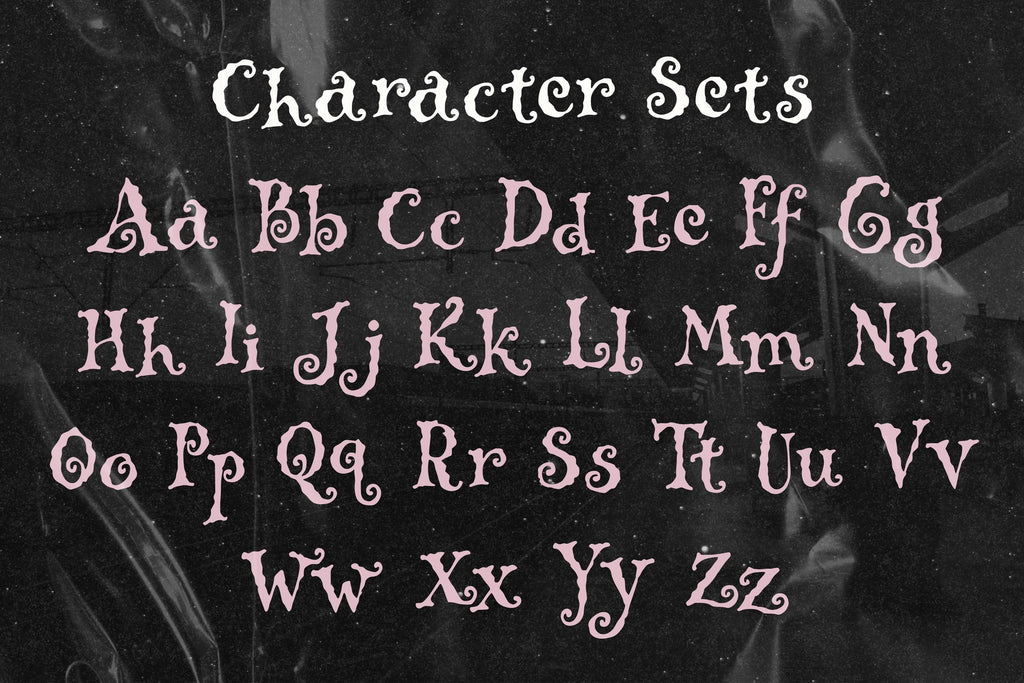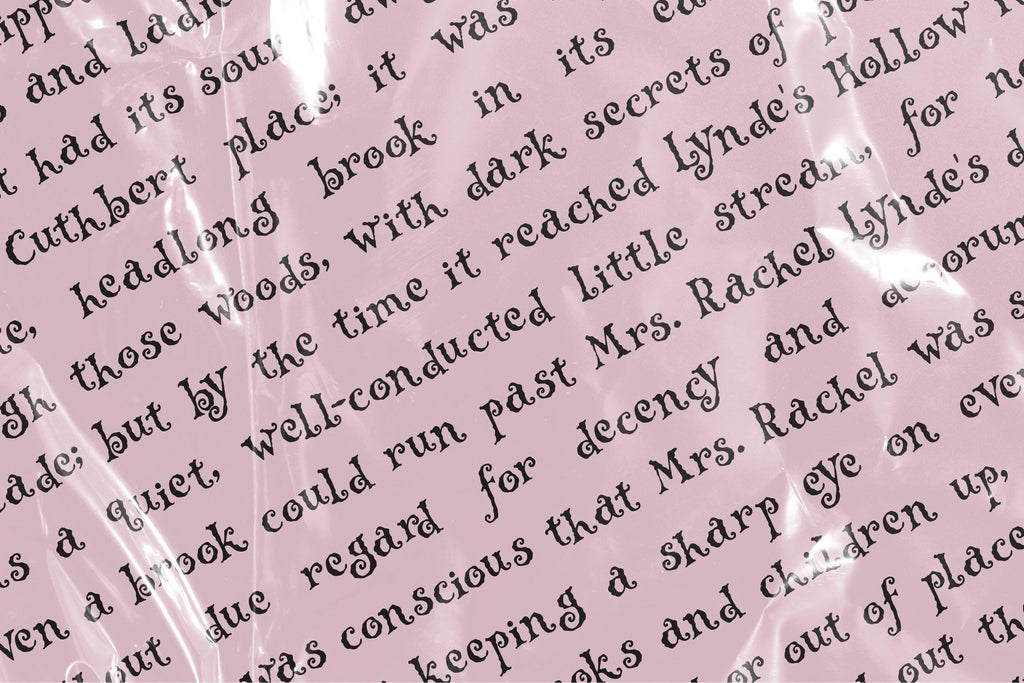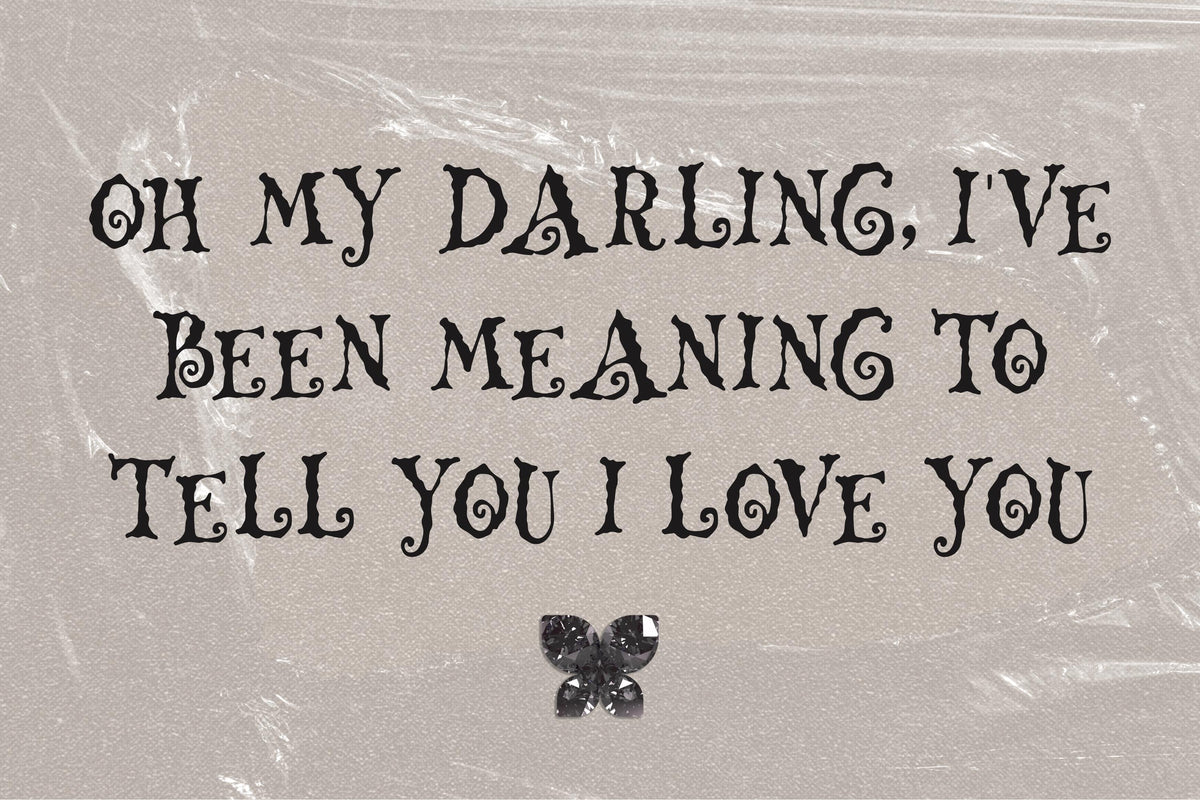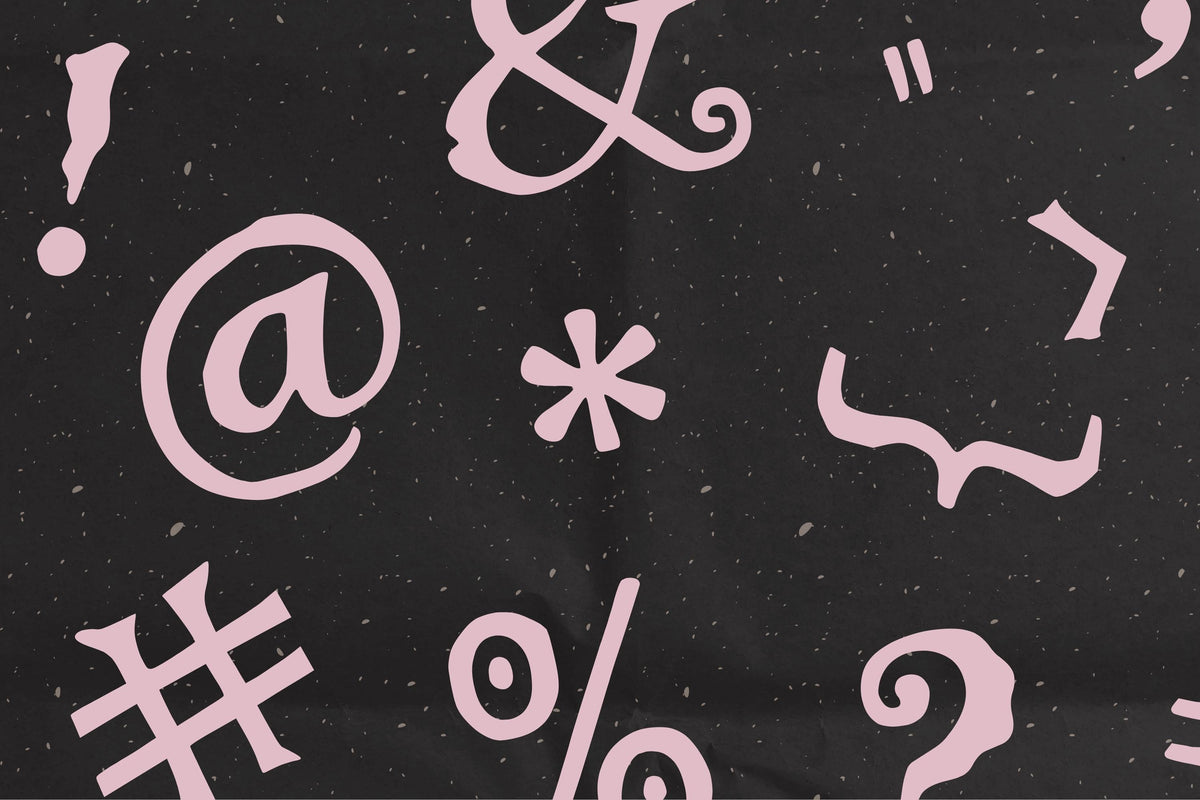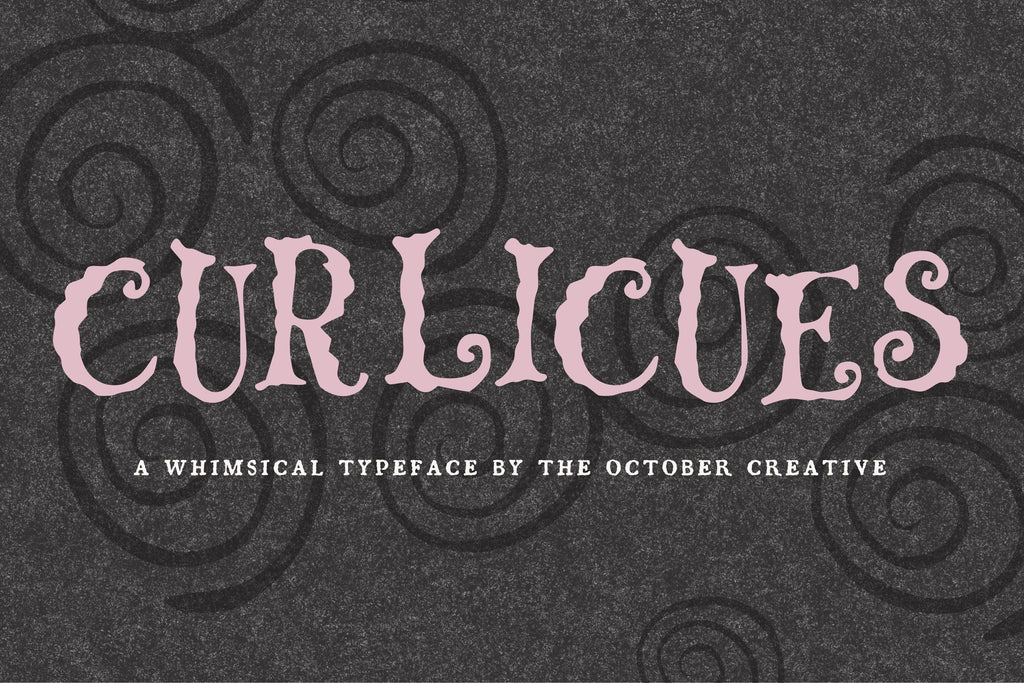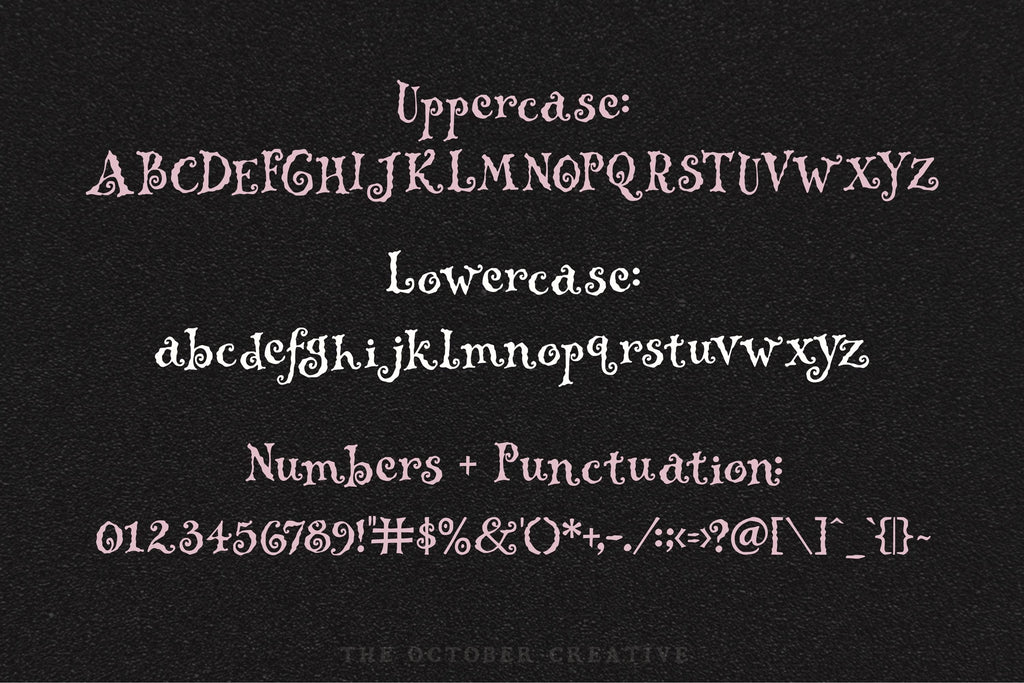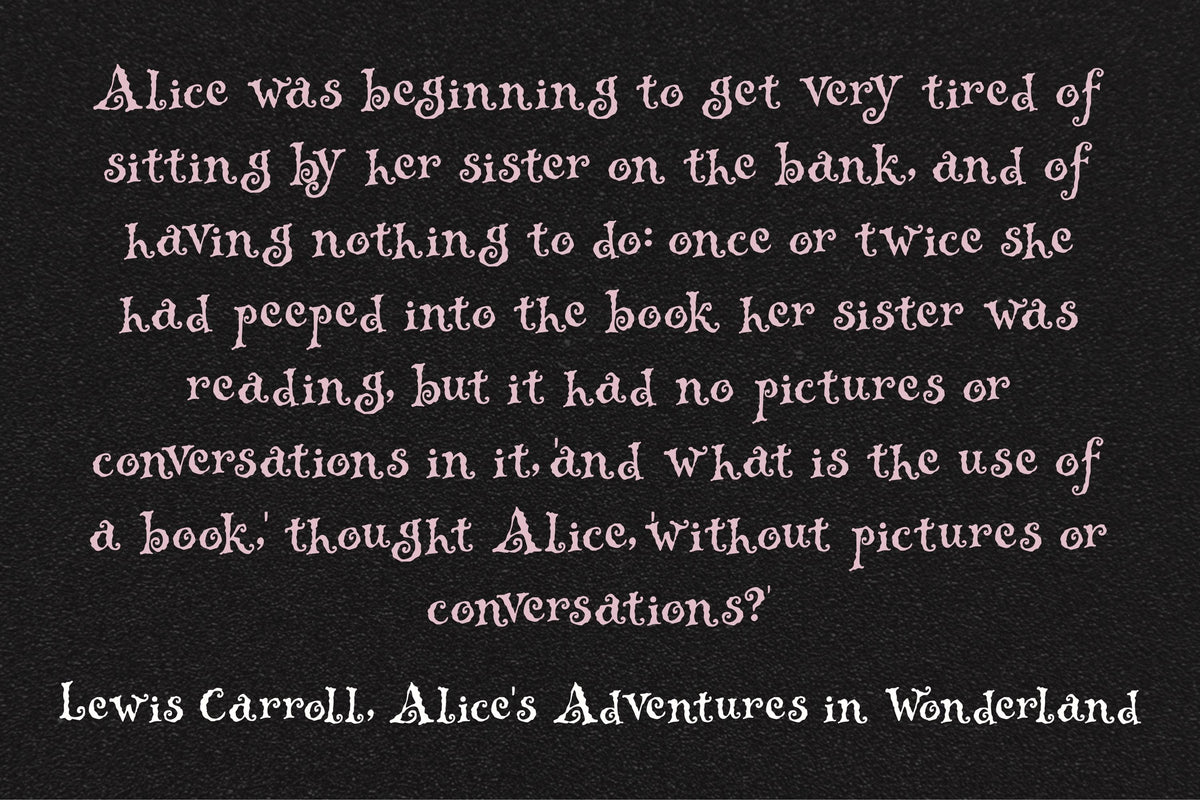
Curlicues Font
Curlicues is a bold, curly font with hooks and flourishes that make ordinary words much more fun to look at. Give it a turn on a shop name, a product label, or a playful poster where those wonderfully odd letters can get some attention.